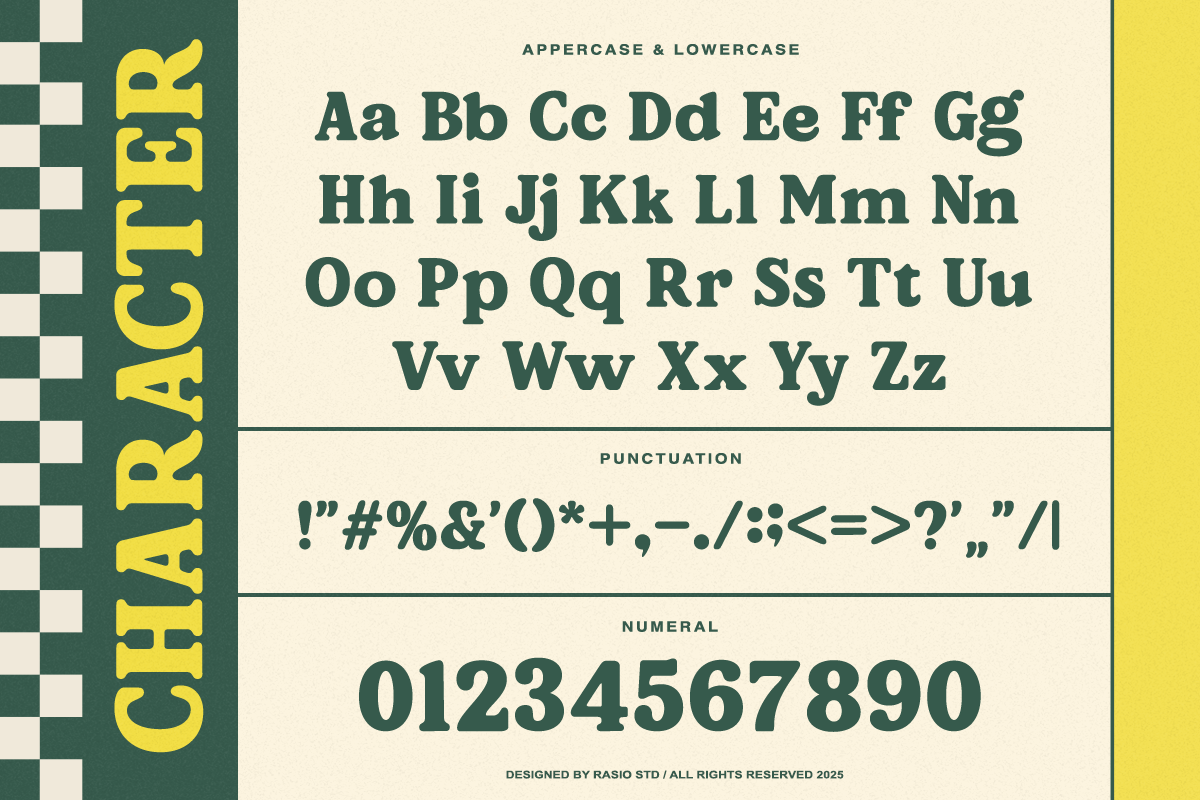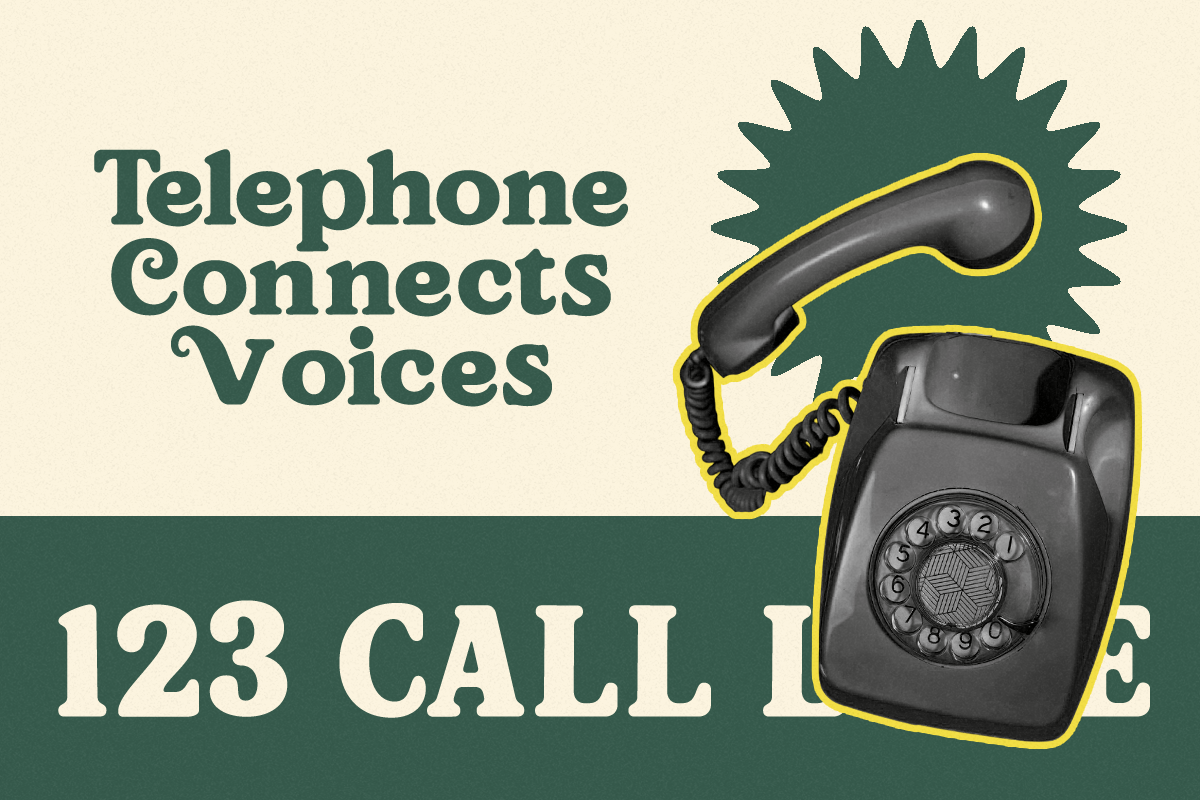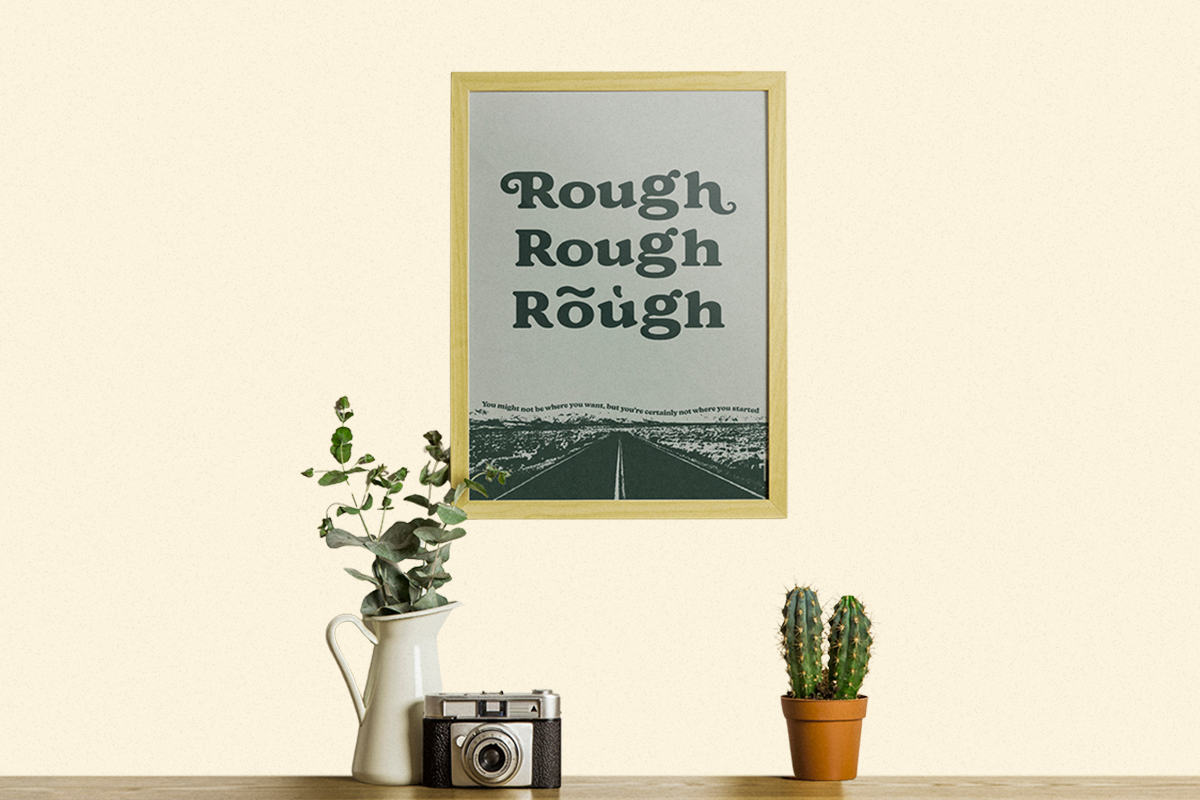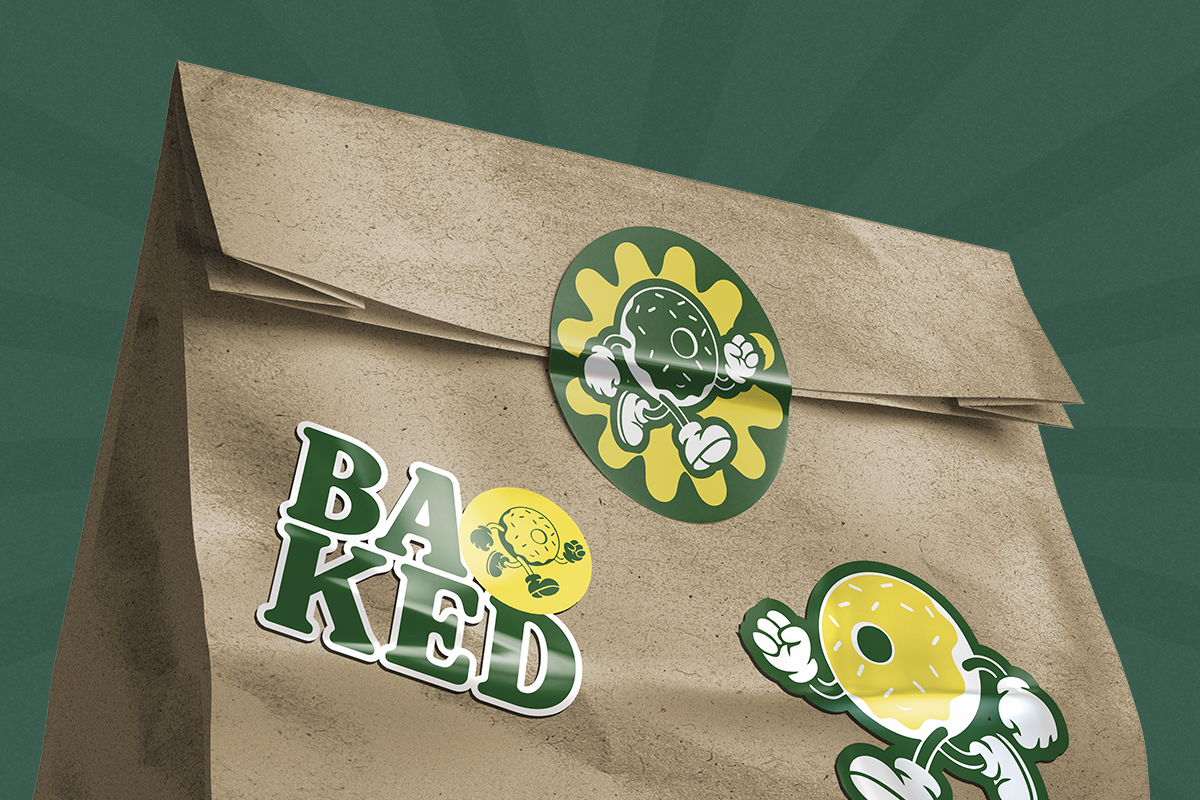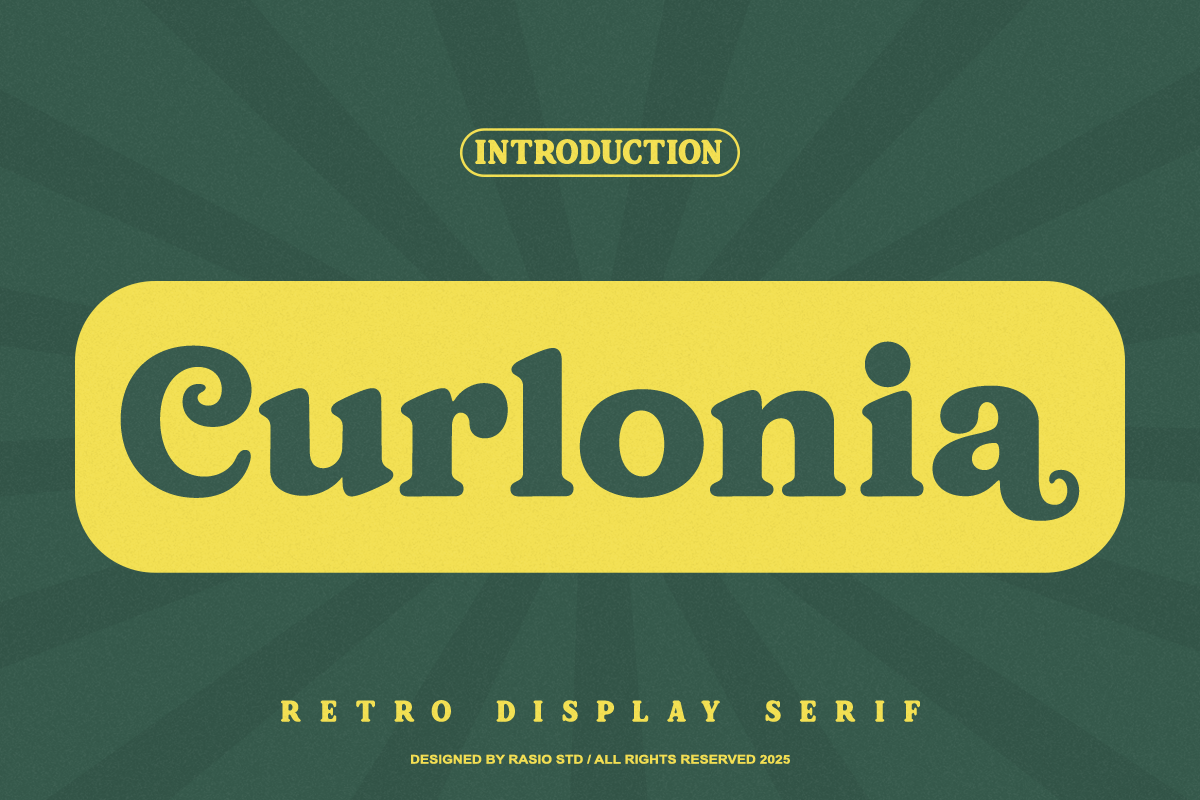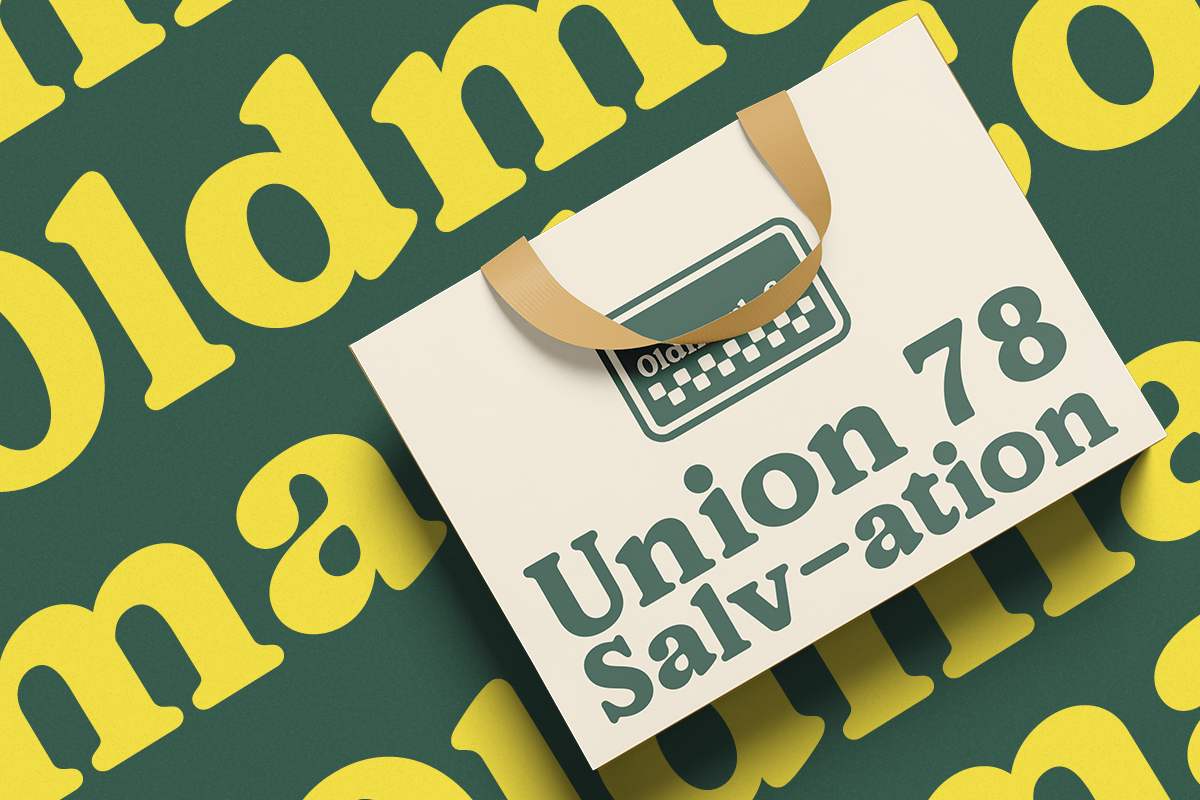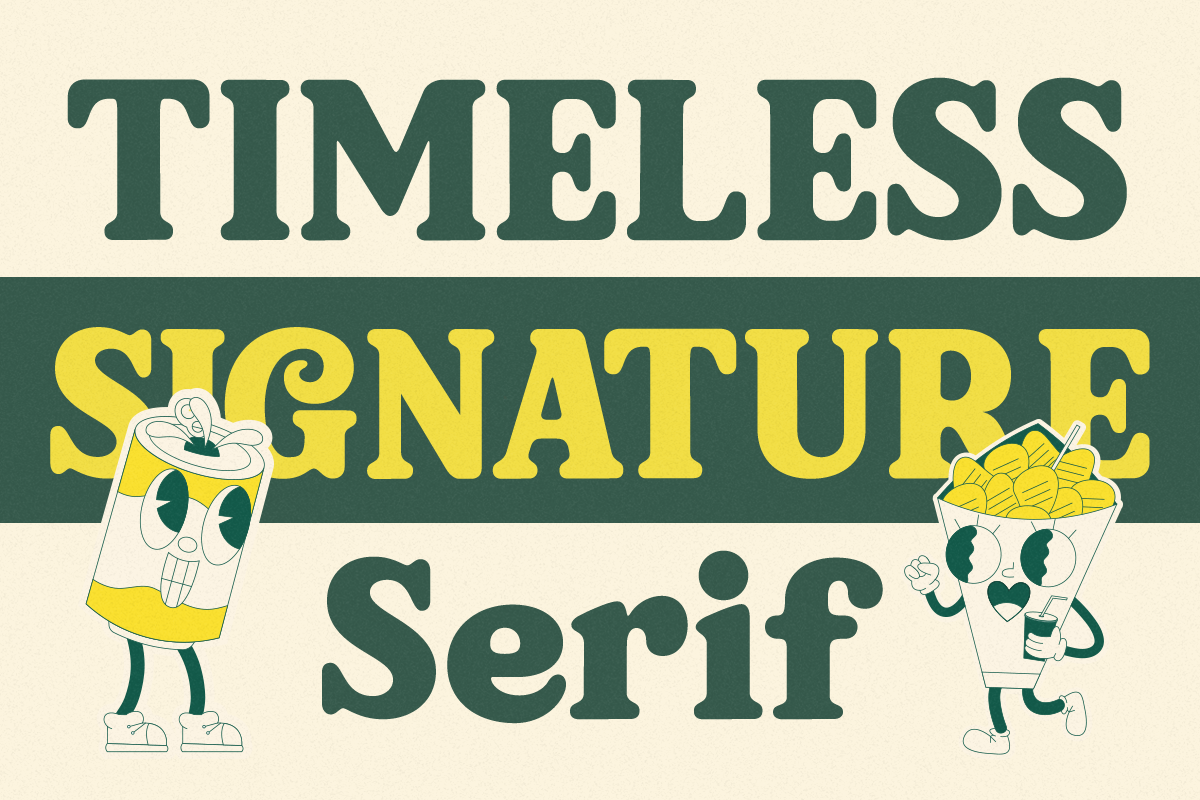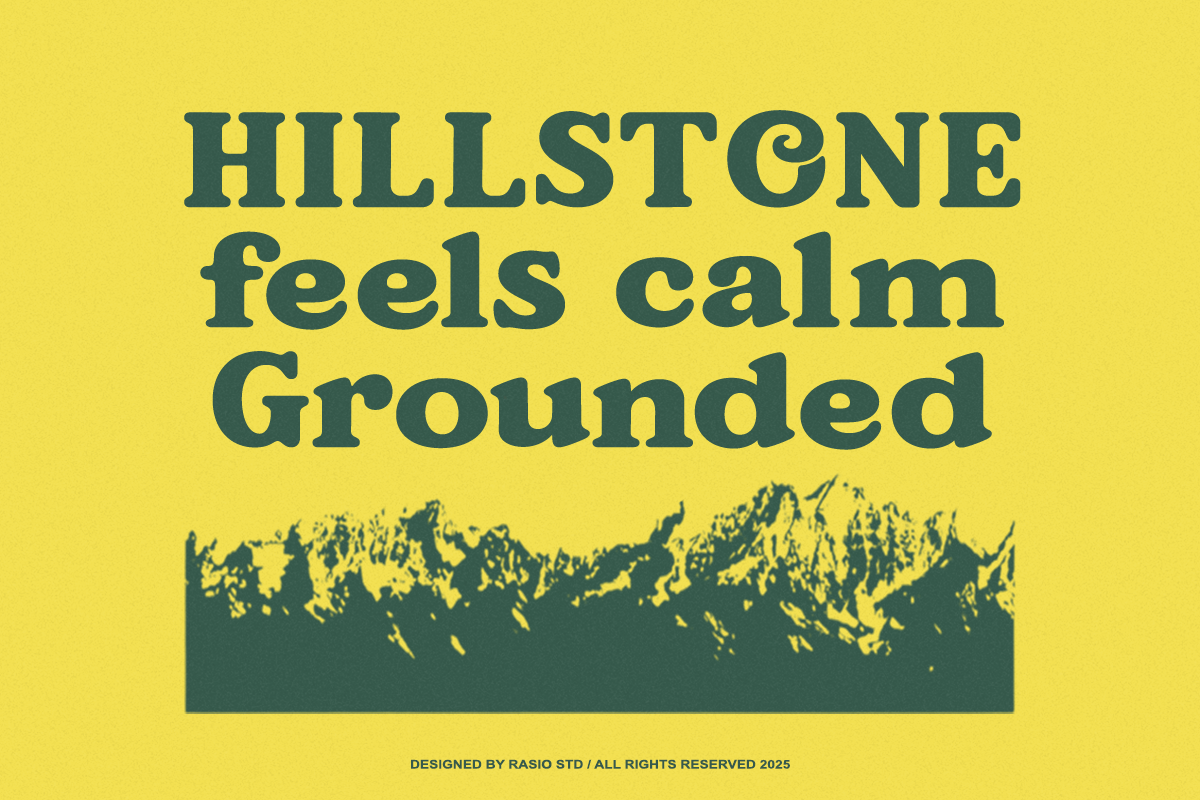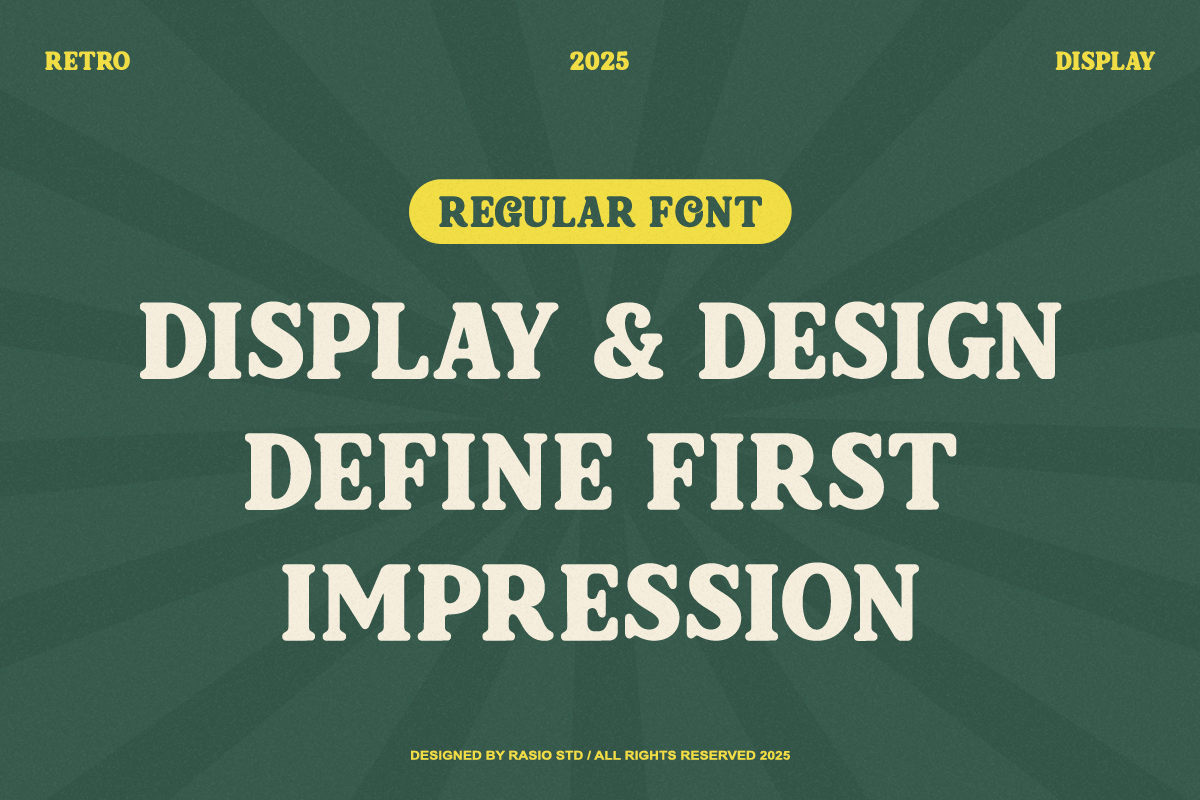
Curlonia Retro Display Serif Font
Curlonia is a retro-inspired display serif typeface that blends bold vintage charm with smooth rounded character shapes. The letterforms feature soft curves, thick strokes, and playful serif details that create a friendly and nostalgic typographic personality. Its balanced proportions and expressive shapes bring a classic retro aesthetic reminiscent of vintage signage and mid-century branding.
Curlonia is designed for projects that require a strong retro personality and bold visual impact. Its rounded serif shapes and nostalgic style make it highly effective for branding, logo design, vintage posters, product packaging, café and restaurant branding, advertising graphics, merchandise design, and social media visuals. The playful vintage aesthetic also works well for lifestyle brands, food packaging, retro-themed events, and creative marketing materials that aim to capture a classic yet friendly visual tone.
- Bold retro serif structure that brings a nostalgic and expressive display character
- Smooth rounded curves and soft serif edges that enhance the friendly vintage feel
- Playful decorative details that give the letterforms a distinctive retro personality
- Thick balanced strokes that create strong visual impact for headlines and branding
- Carefully adjusted spacing that keeps the typography clear, readable in display layouts
- Vintage-inspired logo design and brand identity for retro-style businesses
- Eye-catching poster headlines, signage, and promotional graphics
- Product packaging for food brands, cafés, beverages, and lifestyle goods
- Social media graphics, marketing banners, and retro-themed campaigns
- Merchandise design such as t-shirts, stickers, labels, and branding assets